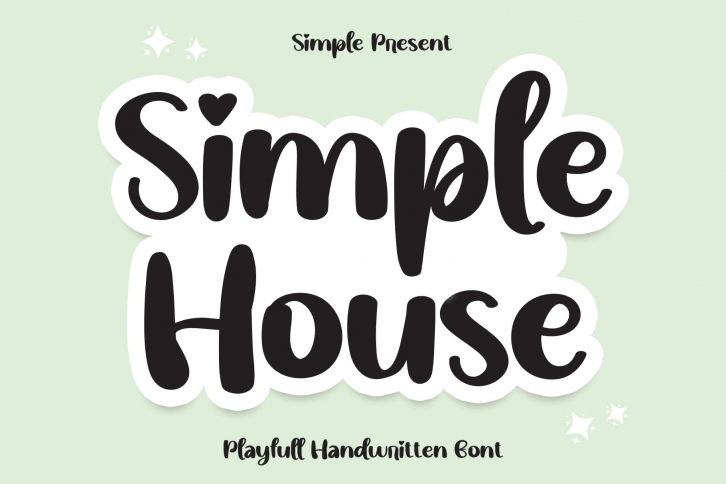
Simple House is a gorgeous font that was realeased on July 18, 2022. The font can be used in many style contexts and design environments. Perfect for invitations, magazines, websites, logos, and more! It was designed by Scratchones and the file size is 18.98 MB. Thanks for checking out this font!